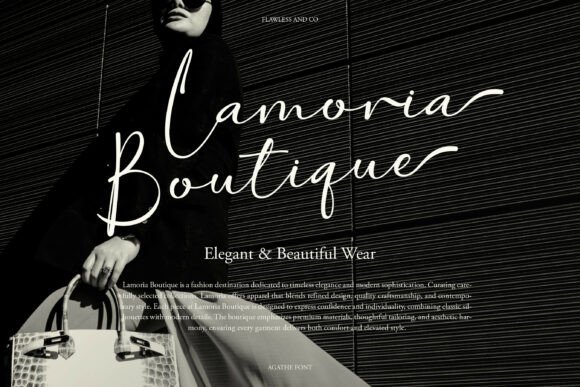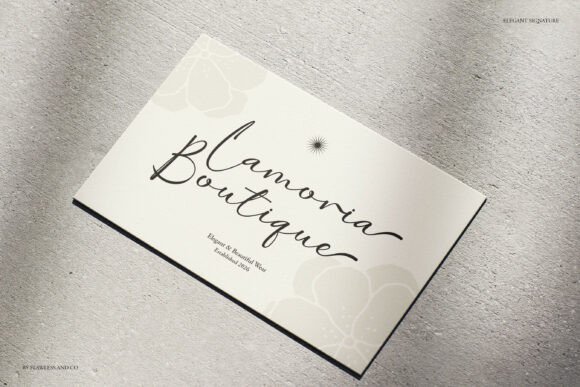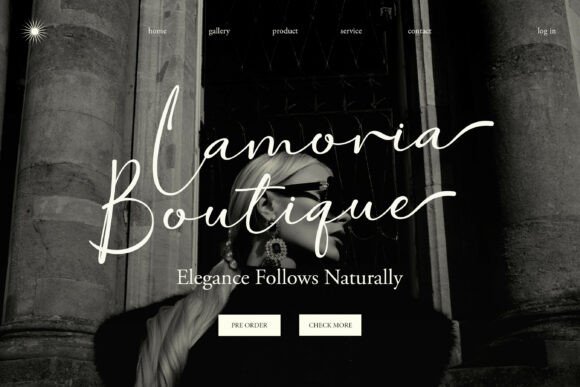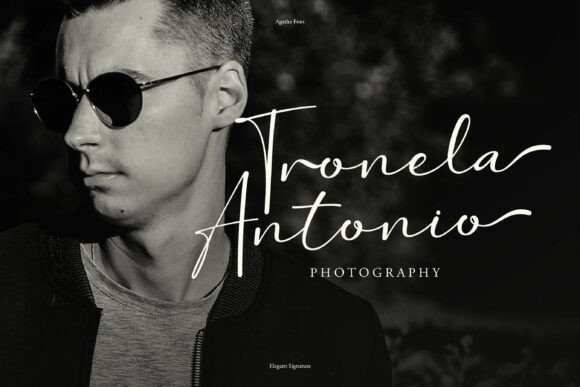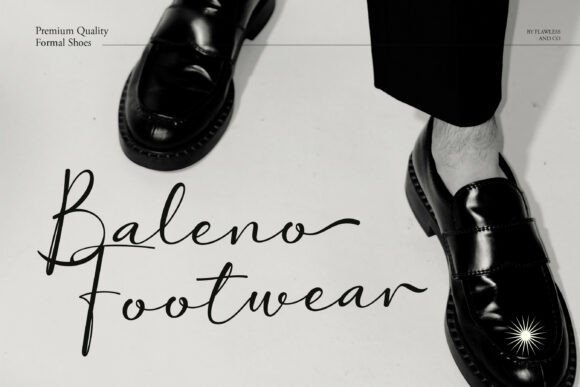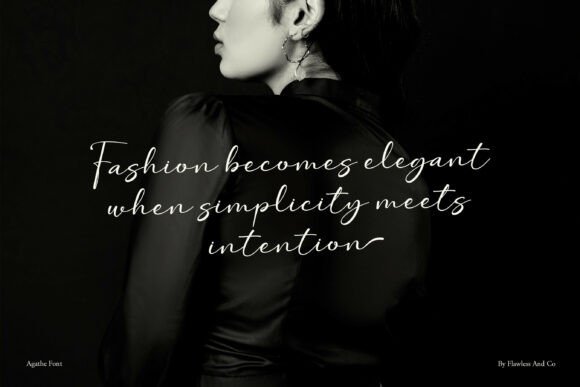
Effortless Luxury in Every Line
As designers, we’ve all been there – staring at a blank canvas, waiting for the perfect font to bring our vision to life. And then, it happens: a font that effortlessly elevates our design from ordinary to extraordinary. For those seeking the epitome of high-fashion minimalism, the Agathe Signature font is the ultimate game-changer.
This sophisticated typeface boasts a rapid-stroke aesthetic that mimics the authentic handwriting of a creative professional, making every word feel like a hand-signed piece of art. Whether you’re designing a sleek business card or a modern social media aesthetic, the Agathe Signature typeface provides a clean yet expressive flow that adds a personal touch to digital designs.
For designers who value understated elegance, the Agathe Signature font is a valuable asset that enhances a brand’s visual identity with its chic, rhythmic lines. With PUA-encoded glyphs and swashes, it’s simple to use in any design software, making it a must-have for those who demand the best.
Agathe Signature Font Key Features
- Font Family: Agathe Signature Font is a custom-designed script font, ideal for creating elegant and sophisticated signatures.
- Unique Characteristics: Features a flowing, handwritten style with subtle flourishes and connections between letters, adding a touch of personality to signatures.
Agathe Signature Font Review
I recently had the chance to work with the Agathe Signature Font, and I must say, it’s a mixed bag.
- Unique and elegant design: The Agathe Signature Font has a beautiful, cursive script that’s perfect for adding a touch of sophistication to your designs.
- High-quality glyphs: The font includes a wide range of glyphs, including international characters and symbols, making it a great choice for designers who need to work with multiple languages.
- Excellent legibility: The font is easy to read, even at smaller font sizes, making it perfect for body text and titles.
- Limited font weight options: The Agathe Signature Font only comes in a few weight options, which can make it difficult to achieve the perfect balance of style and readability.
- No italic or bold variants: While the font has a beautiful cursive script, it would be great to have italic or bold variants to add more visual interest to your designs.
Overall, I think the Agathe Signature Font is a great choice for designers who need a high-quality, elegant script font. While it has some limitations, its unique design and excellent legibility make it a great addition to any designer’s toolkit.
Getting the Most Out of Agathe Signature Font
For best results, pair the Agathe Signature Font with elegant graphics and minimal color schemes. Use it for titles, headings, and signatures to create a cohesive and professional look.
Agathe Signature Font is ideal for wedding invitations, business cards, and personal stationery. It can also be used for fashion and beauty branding, as well as creative and artistic projects.
Alternatives to Agathe Signature Font
Lato is a modern sans-serif font designed for digital use. It’s highly legible and works well in a variety of contexts, from body text to headings. Use Lato for clean and minimalistic designs where you want to convey a sense of professionalism and approachability.
Lato is a more versatile font compared to Agathe Signature Font, which is more elegant and cursive. Lato is ideal for digital interfaces and online content, while Agathe Signature Font is better suited for formal invitations and wedding stationery.